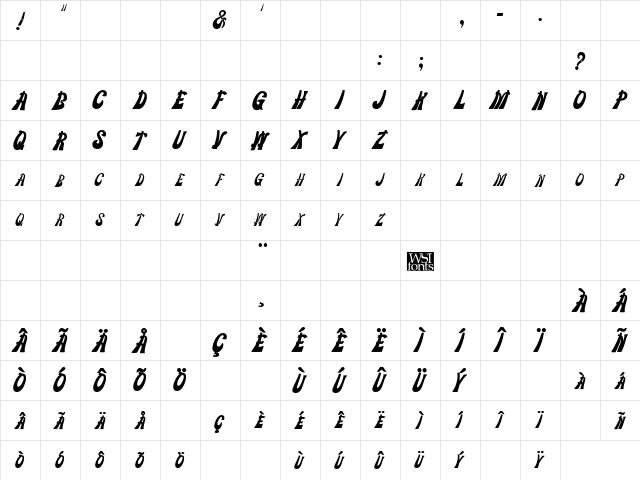
Chipper Display Bold Bold
Design Context for Chipper Display Bold Typeface
Chipper Display Bold is built around its visual character rather than neutral utility — its distinctive forms are designed to make an impression at display sizes. Its bold stroke weight gives it real presence on the page.
Font Pairing: Pair with a clean neutral sans-serif for body copy to let Chipper Display Bold's character lead without overwhelming the composition.
Pro Tip: Treat Chipper Display Bold as the centrepiece of your typographic hierarchy. One strong heading set in a decorative face can carry an entire layout.